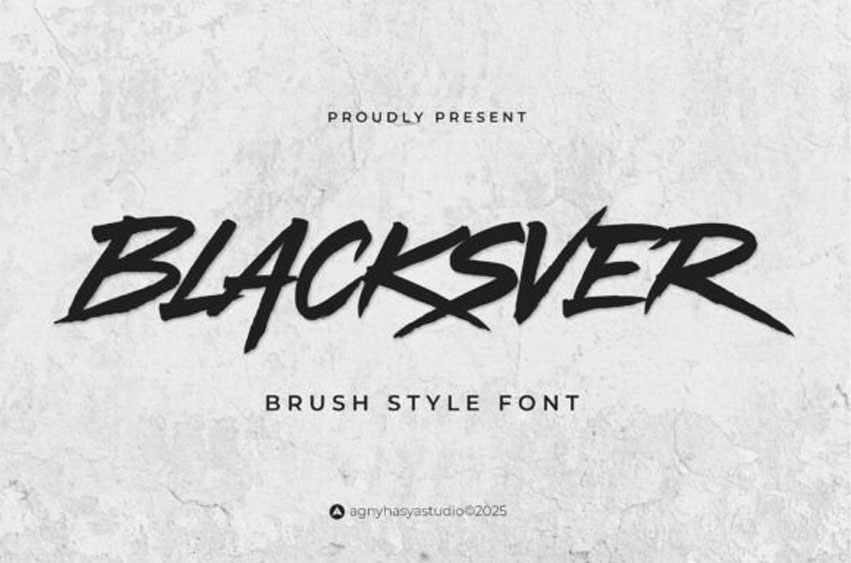
Blacksver Font
Blacksver Font Unleash bold expression with Blacksver, a fearless brush typeface made to roar, rebel, and redefine. Born for chaos and crafted with punch, this font doesn’t follow the rules; it rewrites them.
Whether you’re designing for music, streetwear, or raw emotion, Blacksver brings untamed energy and no apologies. Just pure, unfiltered attitude in every stroke.